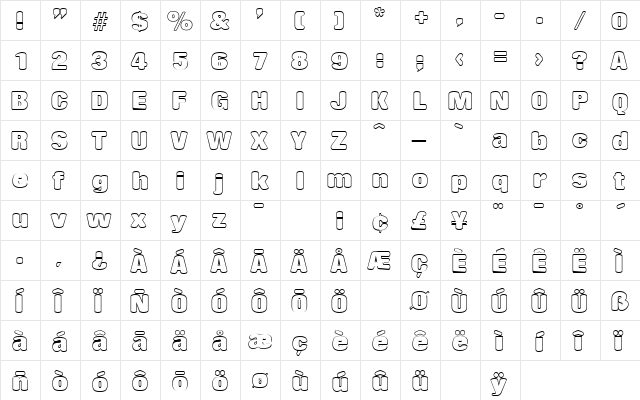
RollingOutline Regular
Design Context for RollingOutline Typeface
RollingOutline is built around its visual character rather than neutral utility — its distinctive forms are designed to make an impression at display sizes.
Font Pairing: Pair with a clean neutral sans-serif for body copy to let RollingOutline's character lead without overwhelming the composition.
Pro Tip: Use RollingOutline exclusively at display sizes — it was designed to be seen, not read at length. Let a neutral companion handle body copy.